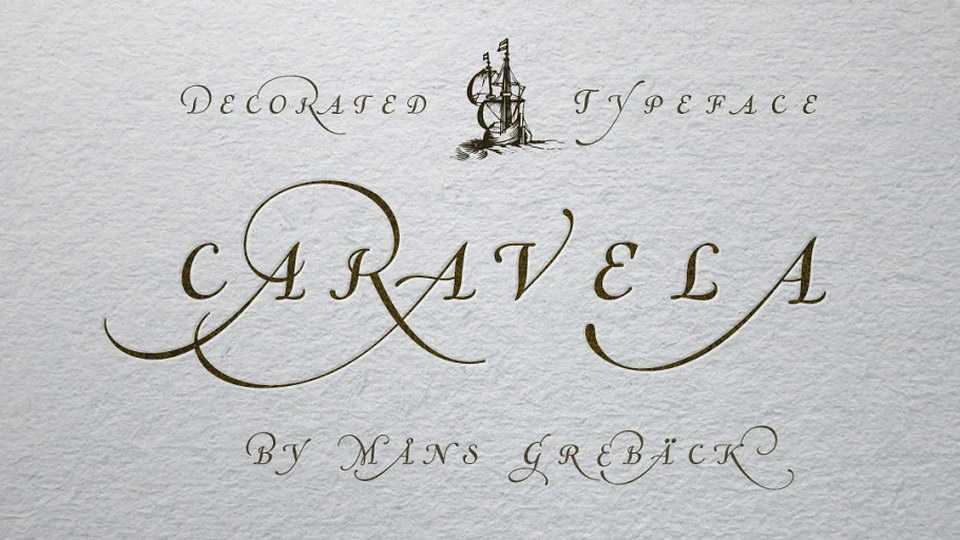
Download Caravela font, a decorative formal typeface inspired by 17th century typographic works. Caravela lifts some of the absolute best elements from the golden age of calligraphic lettering, bringing it to life in a new, modern setting.
Designer: Måns Grebäck